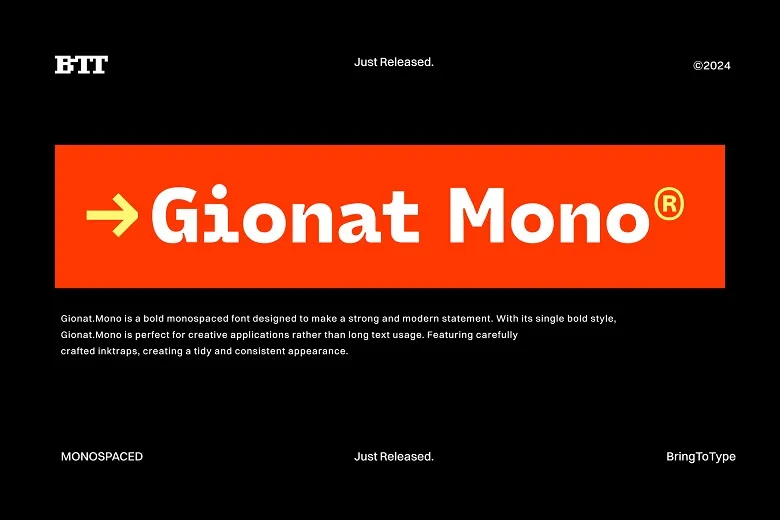
Gionat Mono Font
Gionat Font Mono is a modern monospace sans serif font that is perfect for any project for which you want to stand out and be noticed. Due to its single bold style, Gionat Mono font suits best for the design related purposes than for texts. Including such techniques as ink traps, which give the design a neat and harmonious look.